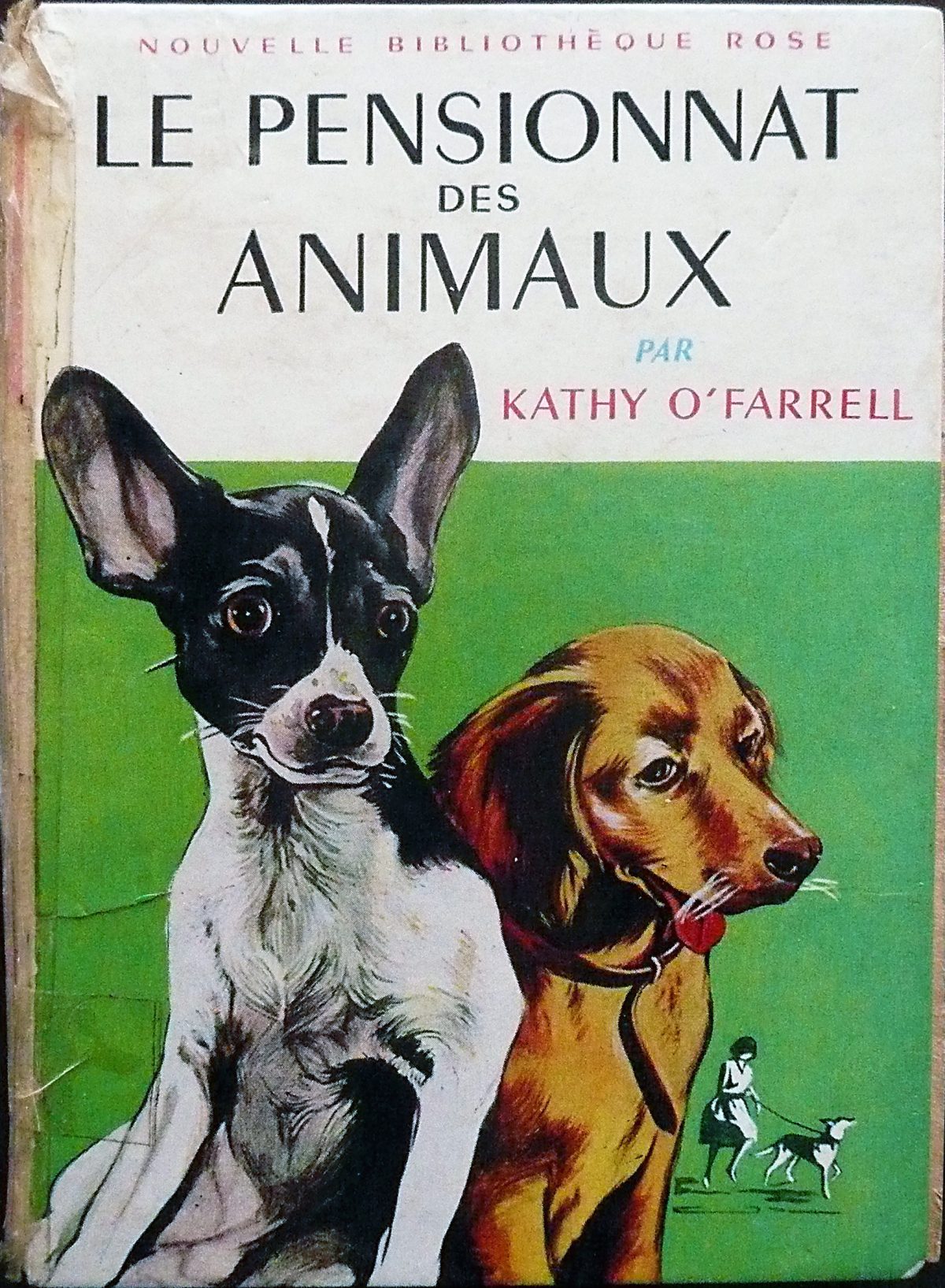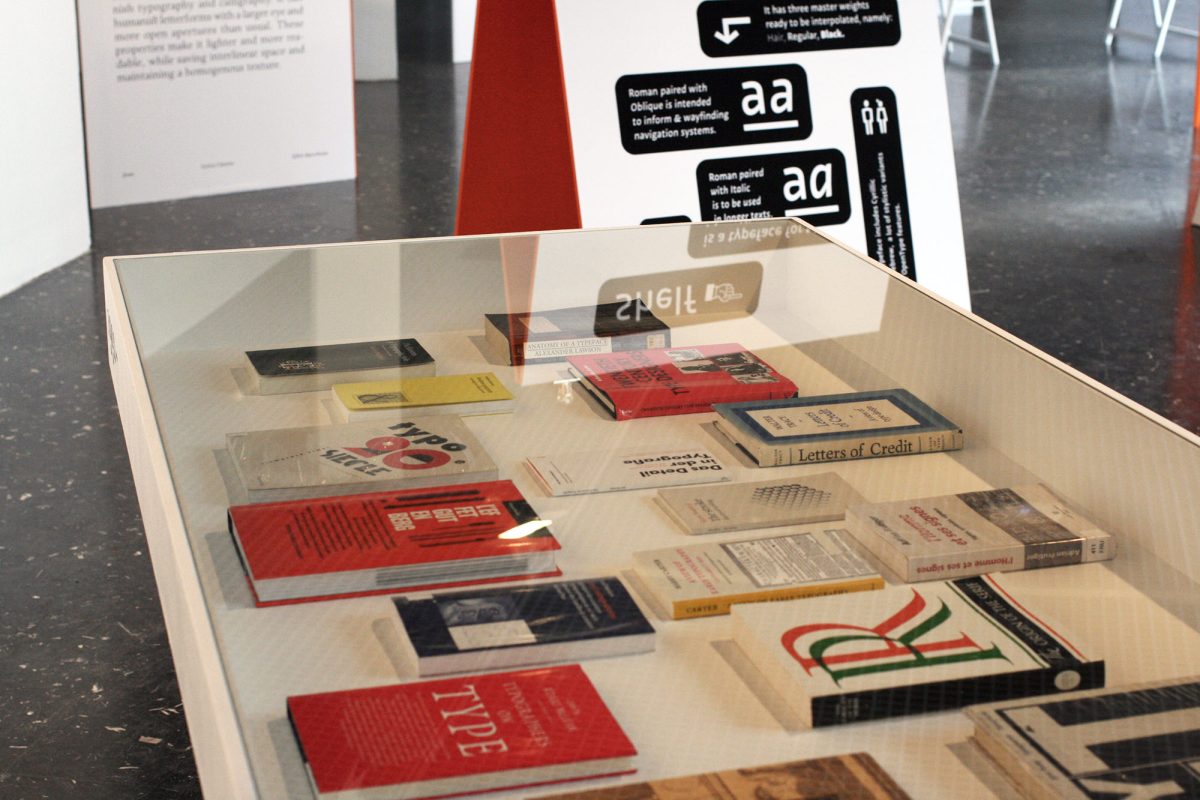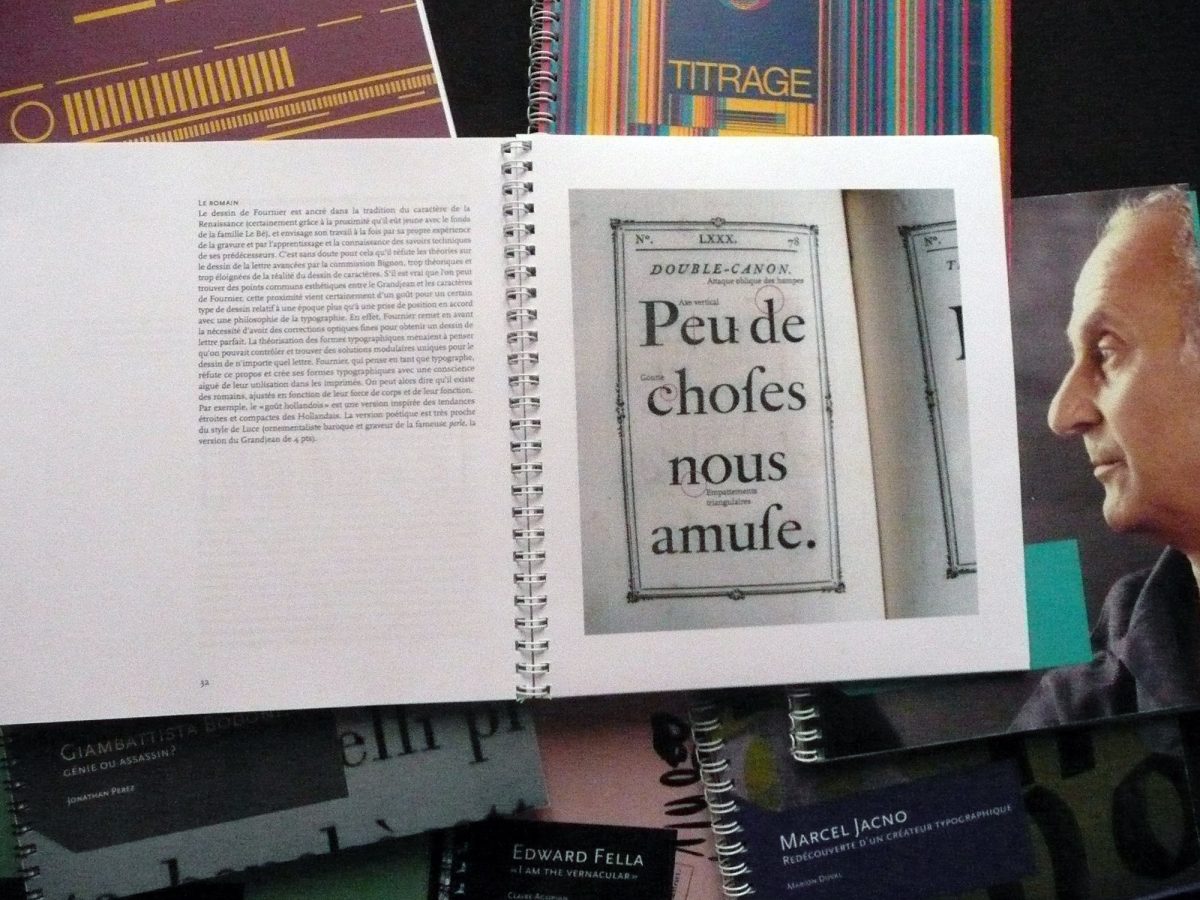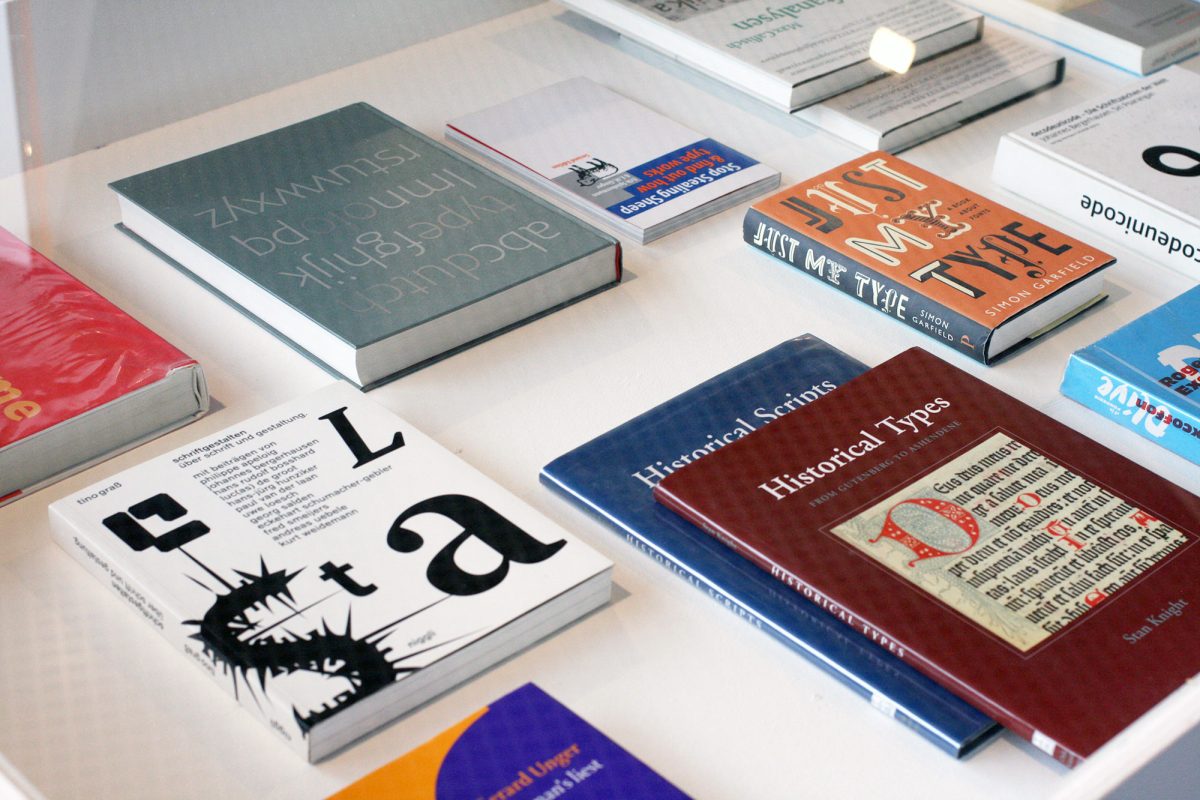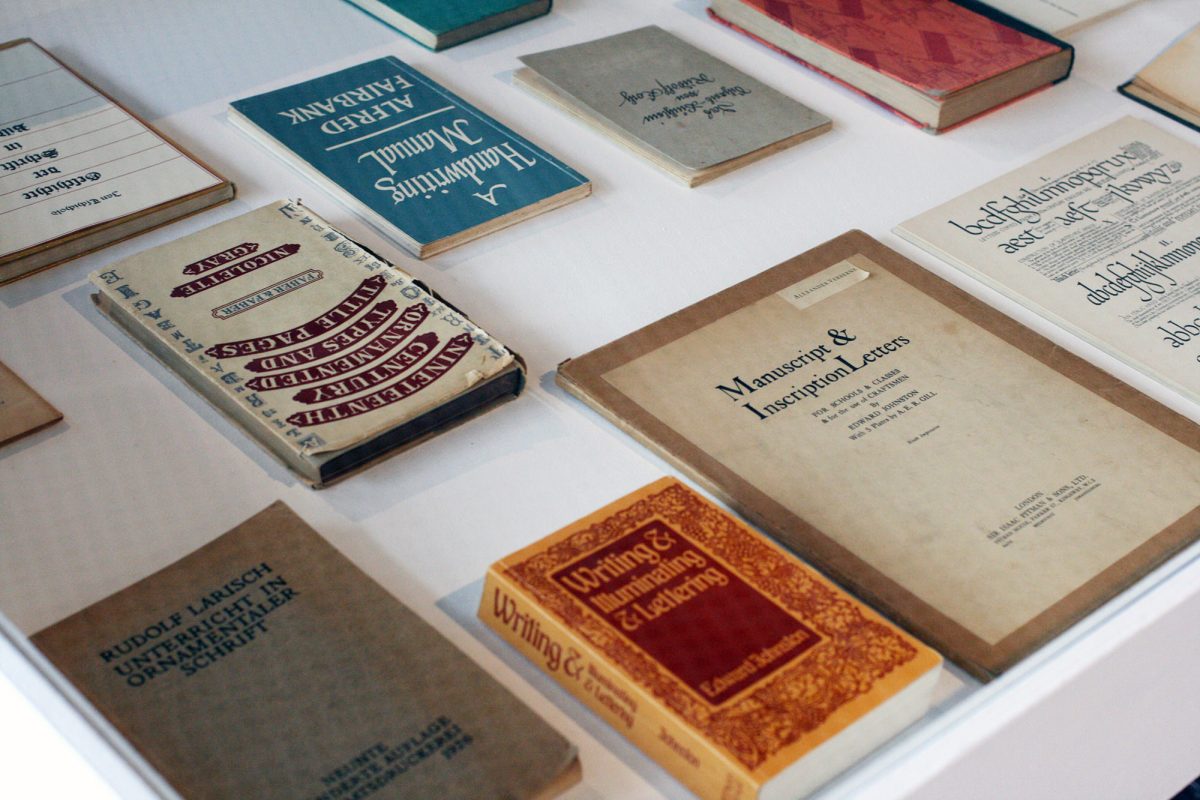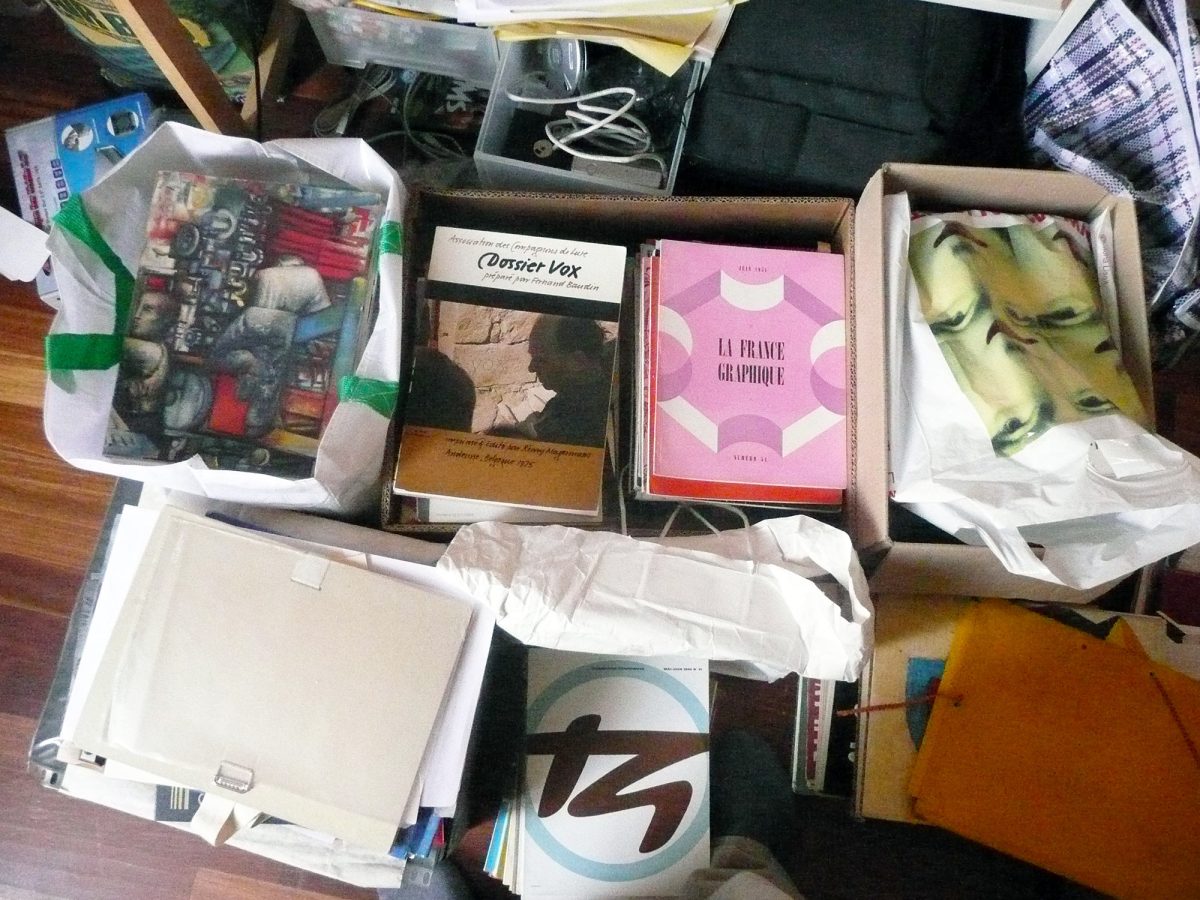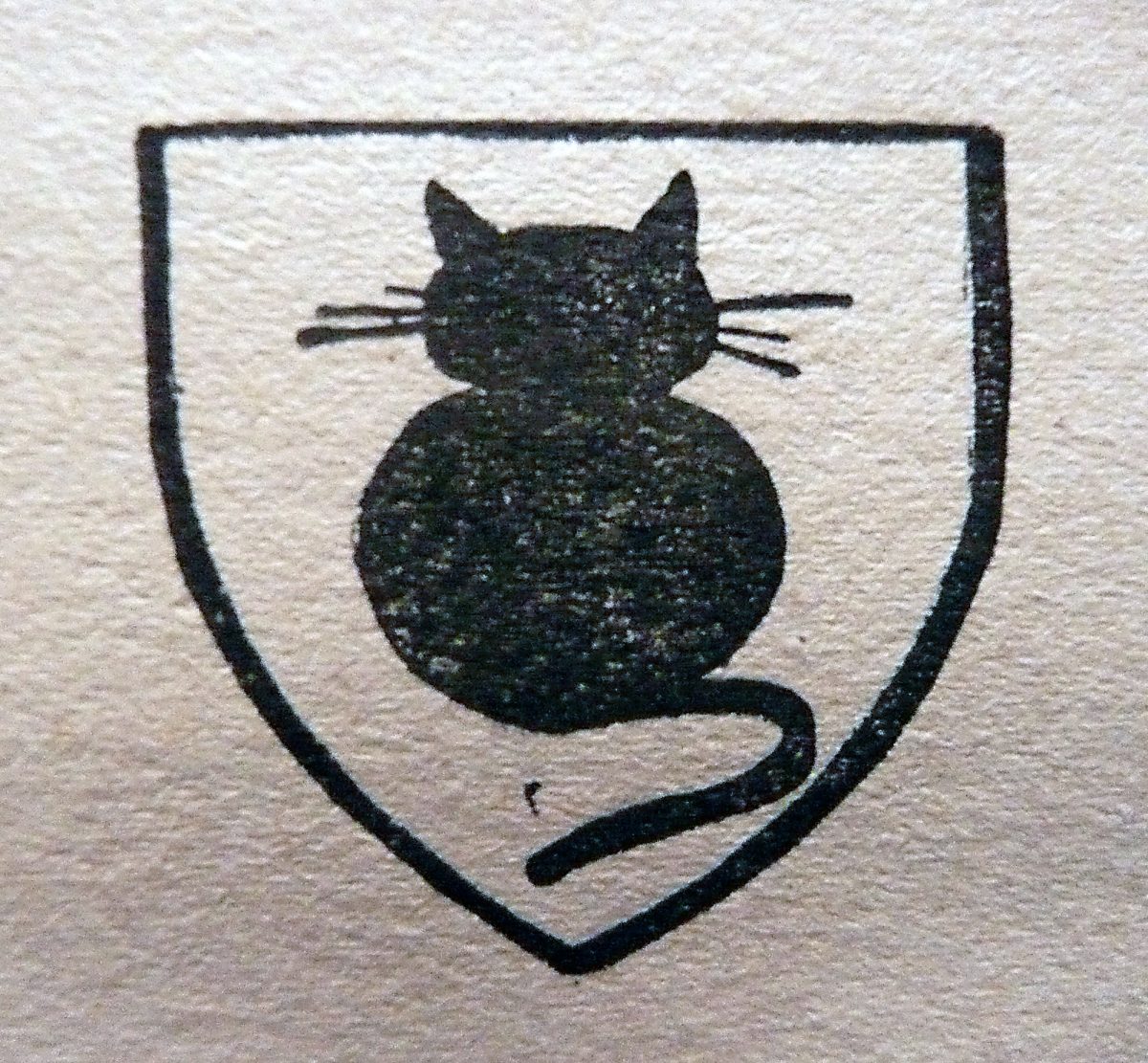
The folds in life
On the occasion of the second edition of the Pangramme exhibition catalog, Sébastien Morlighem was invited to contribute the present text which allows, through his personal insights, to build a photograph of the path that the pedagogy of typography has deployed in France in the last 25 years.
‘Writing only speaks of the past to bury it. It is a tomb in this double sense that, by the same text, it honors and eliminates’. 1
Michel de Certeau, The Writing of History), 1975.
Kathy O’Farrell’s Animal Boarding School, small illustrated volume of the New Pink Library, was one of my favorite books. I forgot in what circumstances it appeared in my life as a child, but he never left me over the removals, resistant, despite its very poor condition — the cover is detached from the back, the inside separated into three parts, formerly patched with Scotch tape; it continues to accompany me. I have read it many times: it tells the story of the five children of the Collins family, living in a small English village, and their efforts to collect, save, and feed several animals. Very quickly, they found a club, the Friends of the Beasts. The first decision they take, spontaneously, is the creation of a badge, the stylized silhouette of a cat: “You make two rounds for the head and the body, you add two ears, a tail and mustaches. Nothing easier. Besides, we will have to deal with cats.”
Beyond the moving power of this collective action, modest but carrier of respect and hope, I capture, re-reading, the index of a future interest for a very old practice (draw, repeat, dispose of , share a sign), long before a journey without a real vocation begins, which has been invented as it goes on as possibilities, opportunities, and forks.
When Jérôme Knebusch invited me to write a text for the new edition of the catalog Pangramme: learning type design, intended to complete the ‘Bibliography in images’, composed of covers of books forming a combinatorics among many others about the scripts, typography and type design, I was confident, excessively, in my ability to sketch a micro-historiography of these objects with multiple forms —monograph, manual, collection, facsimile, catalog, conspectus, atlas… Wasted effort, I had to give up this too complex essay after several unsatisfactory approaches. Therefore, I want to apologize for the autobiographical evocation that replaces it. Beyond the personal testimony, it tries to recreate an experience made of contiguous activities, between teaching, research and publishing, from which the books form the faithful wake.
At the beginning of the 1990s, the higher technical certificate in visual communication at the Estienne school was devoid of any historical initiation. It was as if, from the outset, our professors took it for granted: We were students who were sufficiently learned to master all the subtleties of genres and typographic uses, or we had to rapidly acquire this culture by our own. The book that mattered most to us, while desktop publishing was slowly gaining ground, was the Mecanorma catalog, in which we selected and photocopied models of alphabets for our projects.
My readings really started in the most appropriate setting of the option Typographic creation of the higher diploma of applied arts (or ‘DSAA typo’) a training that the typographer Franck Jalleau and the calligrapher Michel Derre had just founded in the Estienne school, and in which some of his professors, Catherine Ballestero, Jean-Louis Estève and Francis Freisz contributed too. This new curriculum did not include a history course, but Catherine’s contribution was essential to make us understand the affinities between literature, poetry and typography. We also participate from time to time in intense seminars led by Gérard Blanchard, a spirit always open to the ramifications and connections that enthusiastically prepared his work Help for the choice of type 2 and provided references. During this decisive period, some important books were published, such as Calligraphy by Claude Mediavilla and especially The Gutenberg Effect (L'effet Gutenberg) by Fernand Baudin, whose overall qualities and open erudition impressed me deeply.
In 1997, besides my work as a graphic designer, I returned to Estienne to teach the history of writing and typography in this same course, without asking too much about how to do it or how to transmit it to the students. It was enough to be one, barely older, by their side. Exploring the school’s abundant library with the help of its head, Anouk Seng, who gradually gave me her confidence, significantly expanded our playing field and knowledge. I organized presentations that allowed us to appreciate the material and typographic qualities of the original editions of Aldo Manucio, the Estienne’s, Fournier the Younger, Bodoni, as well as a large number of foundry catalogues, type specimens and publications such as Arts et métiers graphiques or Caractère Noël. In addition, several readings followed, especially those of the Anglo-Saxon studies among the most prominent (Printing Types by Daniel Berkely Updike, The Nymph and the Grot by James Mosley, Modern Typography by Robin Kinross) or less known (Five Hundred Years of Book Design by Alan Bartram, Nineteenth century ornamented types and title pages by Nicolete Gray).
In addition, it was possible to benefit from an annual visit to the Reserve of rare books of the National Library of France (privilege then exceptional without having to justify a university research work), to discover some incunabula of Sweynheim and Pannartz or Jenson. We were also able to consult a series of albums ordered by century and by country, all the photos taken for editorial reproduction, of pages extracted from works of the Reserve. This visual anthology, of which each volume constituted a virtual opening, was very useful to take advantage of a variety of styles and typographical arrangements according to the foliations.
Effect of resonance, began a small library of divulgation that could serve as a relay of the big, promotion after promotion. I assigned each person a specific theme (a punch-cutter, a printer, a work) or a larger one (an editorial or graphic genre, a period) that became an essay, from the bibliographic and iconographic collection to the configuration of the page, the printing and manufacturing of a few copies. This initiative lasted eight or nine years. And then I left.
There were also meetings: with Isabella Checcaglini, a passionate student on Mallarmé, who made an effort to recompose and print the various sonnets with tact and the benevolent help of Jean-Louis Estève in the Estienne’s graphic experimentation laboratory, it was decisive. He promoted the creation in 2007 of the Bibliothèque Typographique, at the end of a memorable multidisciplinary symposium at the Institut memories of contemporary publishing, entitled ‘The book and its design’. This collection that she gave birth in her young house, Ypsilon Éditeur, motivated us to publish, with the complicity of Pauline Nuñez, translations of the works of Gerrit Noordzij, Eric Gill, Robert Bringhurst, Cyrus Highsmith, as well as several studies and collaborative essays on designers and typefaces. It was a joyful and difficult adventure.
At the same time, my progress continued at the Amiens school of art and design, thanks to Patrick Doan, a former DSAA student who became a teacher, and Barbara Dennys, its director. We then undertook a series of actions, including the creation of a specialized documentation fund whose growth is guaranteed through donations and purchases, under the effective leadership of Peggy Letuppe. In the process of cataloging, it is accessible to the students of each course (National Diploma of Art, National Higher Diploma of Plastic Expression, Postgraduate of Typography and Language), nurturing thematic sessions, projects that associate history and practice, and research projects. We hope to gradually develop levels of learning towards this faceted literature, difficult to understand without penetrating the passages and accesses.
The Pangramme exhibition included a selection of books in typography and type design from both past and present’s state of the art.
With the support of the school, I was able to get involved in 2010 in a doctoral thesis at the Department of Typography and Graphic Communication of the University of Reading. This work, provoked by the studies of Jeanne Veyrin-Forrer and André Jammes on the typefaces and books of the Didot family, deals with the origins and development of the ‘modern’ types in France and Great Britain, from the end of the 18th century to early nineteenth. This has considerably transformed my relationship with the discipline, given the immense diversity of material resources necessary for its development over four years, disseminated in various libraries, archives, public and private collections, or thankfully digitized and accessible online, as in Gallica. The frequent exchanges with the team of supervisors, especially with James Mosley, whose requirement of precision and probity, the passion for pointing out the errors in solidly established studies, the approches, the printed statements in bad faith, trained me to read and look better, detect and link the scattered and ignored traces that unleash the set of meanings and the ‘profane dismantling of historical fiction’. However, even completed, defended, stored on a shelf, condemned to oblivion as sporadic consultation, a thesis is not a book, at most its suspended promise, or a deposit of mobile configurations, an ideal platform for sending essays, magazines or collections.
In twenty-five years, places, media, situations were deployed to revitalize a pedagogy of typography, here and in other places. In the Internet age, access to knowledge hitherto unprecedented in its reach and speed, sites, blogs, forums and social networks are involved in providing this pedagogy in everyday life. And the books continue to appear, resolutely marking the states of an infinite learning: fetishes, golems, safeguards.
Sébastien Morlighem (1971) is a French teacher and researcher in typography and graphic design. He has also had various artistic activities: Painter, graphic designer, illustrator, typographer, writer, publisher, and creator of a record label. A founder of the Bibliothèque typographique for Ypsilon Éditeur, he has coauthored several books & written many articles, and has also curated several conferences & exhibitions on graphic design, typography, & type design. He holds a PhD from the University of Reading (UK).
1. In the original: ‘L’écriture ne parle du passé que pour l’enterrer. Elle est un tombeau en ce double sens que, par le même texte, elle honore et elle élimine’. Michel de Certeau, ‘L’écriture de l’histoire’, 1975. ↩
2. Original title: Aide au choix de la typo-graphie. Cours supérieur à l'usage des personnes qui pratiquent PAO (mac et PC), Communication & Langages, 1998. ↩